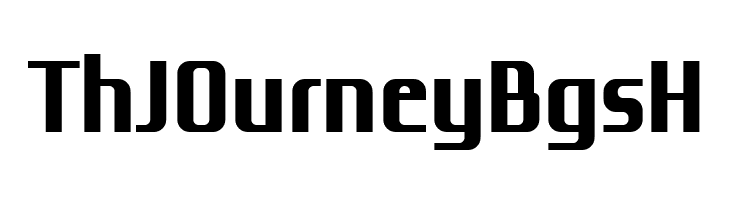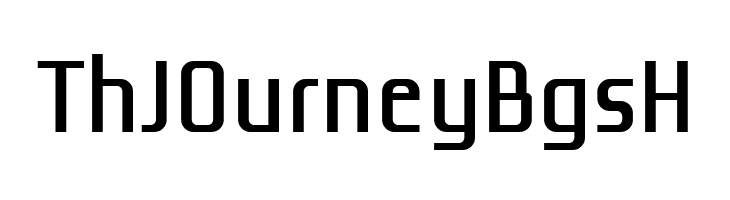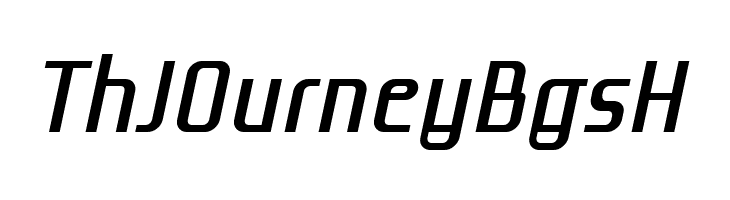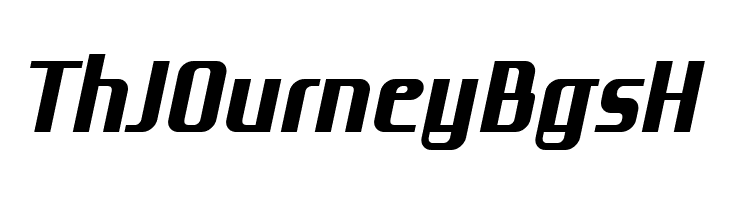
A modern, geometric typeface with clean lines and uniform stroke widths.
• Grov AB
A modern, geometric font with clean lines and rounded edges.
• Grov AB Bold
A bold, modern font with geometric influences and consistent thickness.
• Grov AB Bold Italic
A bold, italicized font with angular lines and a modern, dynamic style.
• Grov AB Italic
A modern, italicized font with sleek, consistent strokes and a dynamic appearance.